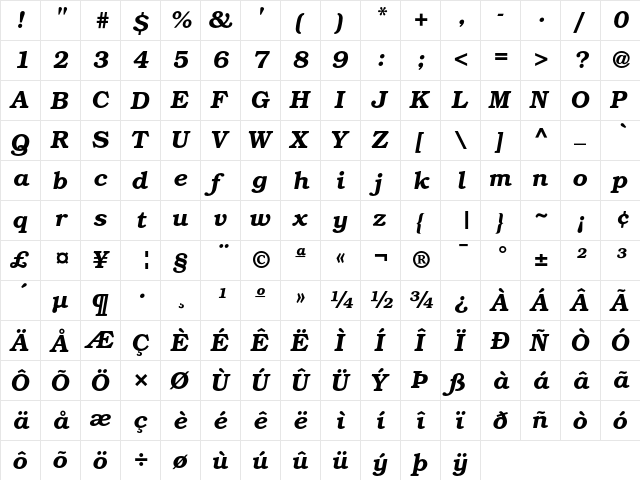
ITC Bookman Demi Italic
Design Context for ITC Bookman Typeface
ITC Bookman takes a measured approach to typography — its balanced proportions and neutral character make it a reliable workhorse for both digital and print work. The dynamic lean of this cut emphasises speed and emphasis in any layout.
Pro Tip: Try ITC Bookman for annotation and caption copy alongside an upright companion — the contrast in angle creates a dynamic but ordered typographic system.